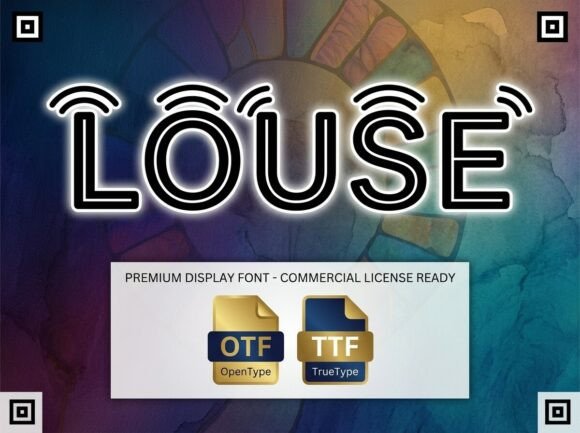
Introduction to Louse Font
Have you ever found yourself captivated by the hum of an old radio, the vibrant glow of a vintage TV, or the mesmerizing display of a modern electronic device? These nostalgic yet futuristic visuals evoke a sense of wonder and connection to the world around us. For designers seeking to capture this essence, the Louse Font emerges as a powerful tool, blending retro charm with modern high-tech appeal.
As a design resource, the Louse Font is a game-changer for creative projects that require a unique visual identity. Its sleek, monolinear letterforms and rhythmic “signal” arcs create a captivating visual experience, making it perfect for high-impact social media headers, electronic music festival promotions, and independent podcast branding. With a transparent background and high-quality design, this font is sure to elevate any design project to new heights.
Key Features of Louse Font
- Louse Font is a high-quality design resource ideal for creative projects.
- This unique font is perfect for designers looking for a distinctive and creative element to enhance their projects.
Honest Review: Louse Font
As a designer, I’m always on the lookout for high-quality design resources to elevate my creative projects. Recently, I stumbled upon the Louse Font, and I must say, it’s a great addition to my design arsenal.
What works well is the font’s unique blend of modern and vintage elements. The transparent background option is a great touch, allowing me to easily customize the font to fit my design needs. The font’s high quality is evident in its crisp lines and clear typography.
- ✨ Unique blend of modern and vintage elements
- ✨ Transparent background option
However, I did encounter some limitations. The font’s weight options are somewhat limited, which can make it difficult to achieve the perfect balance for certain designs. Additionally, the font’s character set is not as extensive as some other fonts I’ve worked with.
Louse Font
Tips for Getting the Most Out of Louse Font
Use the Louse Font in combination with a transparent background to create a unique and eye-catching design. Experiment with different font sizes and styles to add depth and visual interest to your design. Use the Louse Font in a creative project, such as a logo or branding materials, to add a touch of elegance and sophistication.
Common Use Cases for Louse Font
The Louse Font is a versatile design resource that can be used in a variety of creative projects, including logos, branding materials, brochures, and business cards. Its high-quality design and transparent background make it an ideal choice for any project that requires a professional and elegant look.